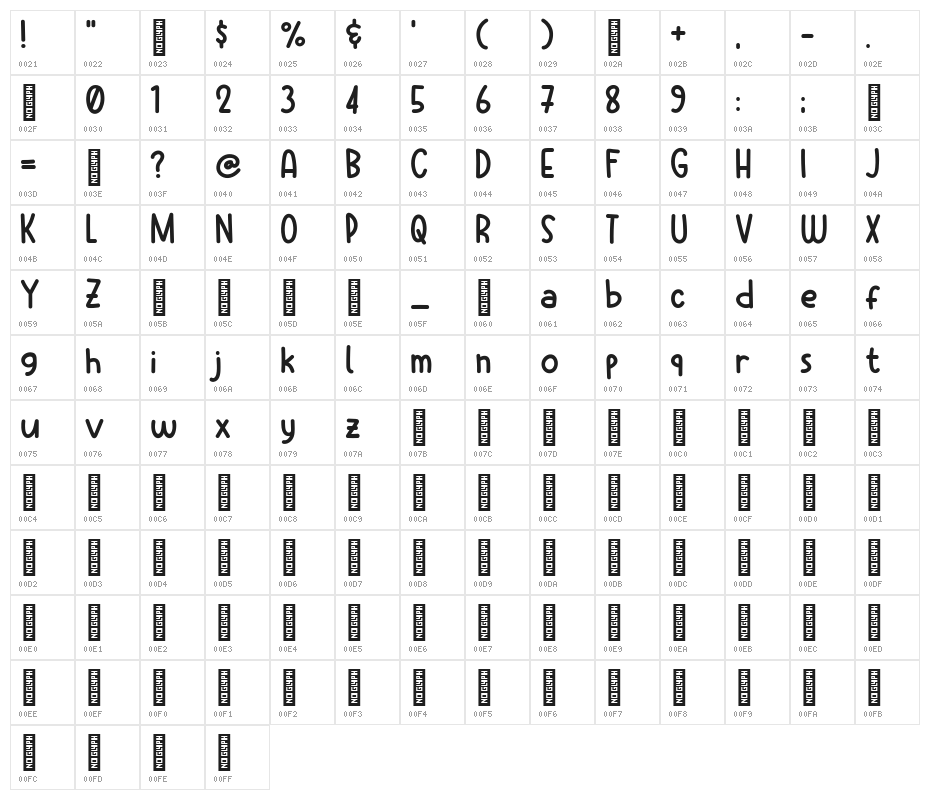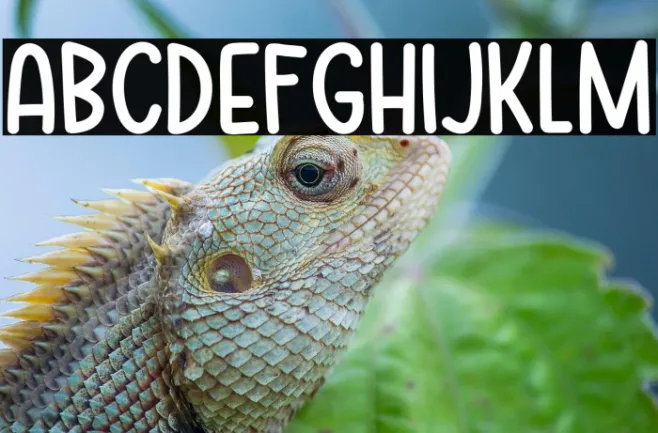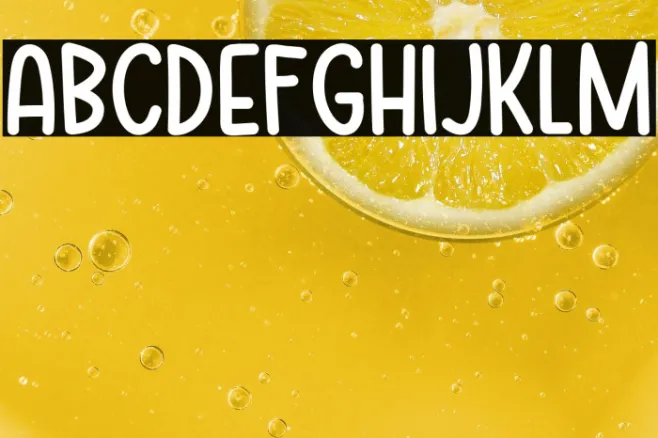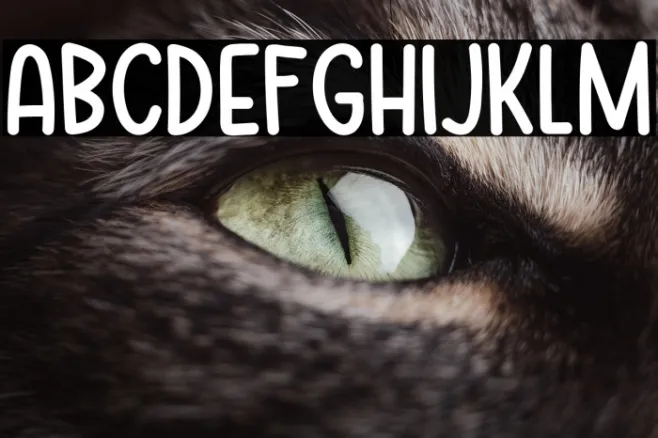
Strawberry Days Font
Strawberry Days Description
This playful and rounded font exudes a friendly and approachable vibe, characterized by its smooth curves and consistent stroke width. The letters are slightly elongated, giving them a whimsical appearance, while maintaining legibility. The lowercase letters mirror the playful nature of the uppercase, with a slight tilt that adds to the casual feel. Numbers and special characters are designed with the same rounded style, ensuring a cohesive look across all text. This font is perfect for projects that require a touch of fun and informality, making it ideal for children's books, playful branding, and casual invitations.
| Proposed Projects | Children's books, playful branding, casual invitations, greeting cards. |